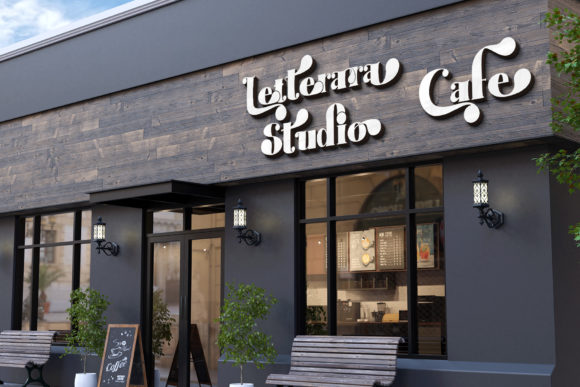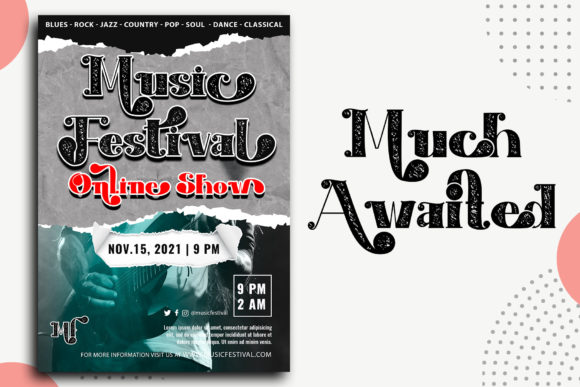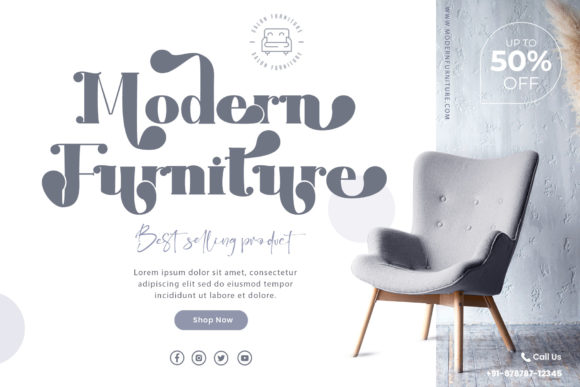
Introduction to Broggitto Font
Broggitto is a cool, distinct and trendy serif font.
It is PUA encoded which means you can access all glyphs and swashes with ease Add it confidently to your favorite creations and let yourself be amazed by the outcome generated.
Broggitto Font offers exceptional quality and versatility, making it a valuable addition to your design toolkit. Whether you’re creating for personal projects or commercial use, Broggitto Font delivers professional results.